For amazing typographic designs in the year 2023, take advantage of our top 10 free fonts selection that graphic designers can download.
We have searched through many free fonts on different platforms and gathered a collection of the 10 best fonts for graphic designers to download in 2023. This set contains a variety of styles, as mentioned before all selected fonts are available for free with designated options for private or commercial use.
10. Bigilla – Free Display Serif Font
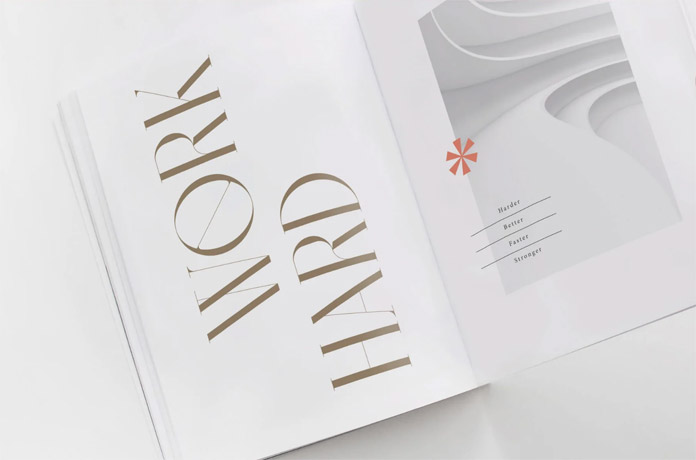
Bigilla is a trustworthy display serif typeface that was created by Jérémie Gauthier. The design includes multiple font weights, such as Regular and Bold. The free Bigilla font also comes with included ligatures and several alternate options. This typeface is perfect for multilingual purposes and can be used in an array of designs, including but not limited to branding, posters, magazines, packaging designs, etc.
9. Juliette – Free Handwritten Signature Font
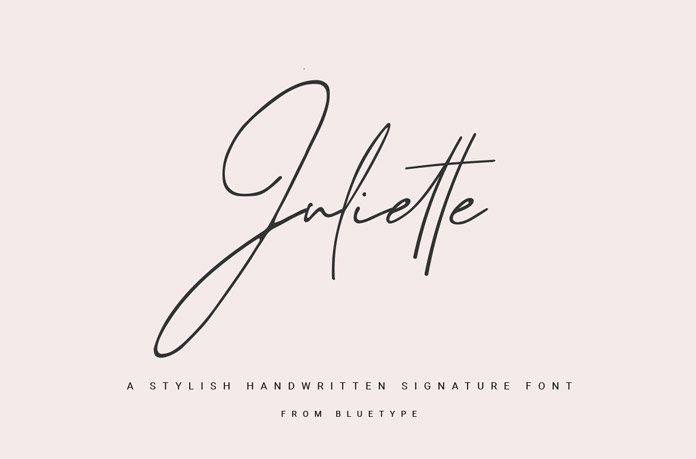
Juliette is the perfect font for creating sophisticated, yet natural and simple signatures in the style of real handwriting. With Juliette’s refined style you can create elegant designs without appearing stuffy. This free handwritten signature font is a great choice for a wide range of projects.
8. Projekt Blackbird – Free Sans Serif Font
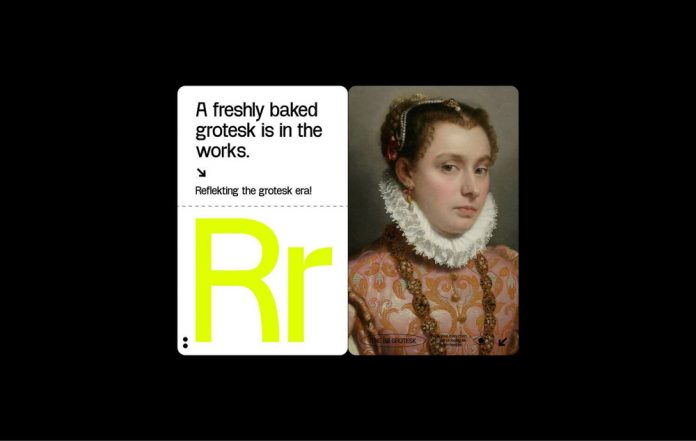
Projekt Blackbird, designed by Leonit Gashi, is a free font that looks great in headlines and web design projects. It can be used for both personal and commercial purposes. The typeface provides a unique and contemporary look.
7. Handler – Free Vintage Sans Serif Font
If you’re looking for a fantastic new vintage typeface, look no further than Handler! This retro-style font has three different character options – regular, stamp, and rough. Mix them up or use them separately to create unique interest in your projects or designs. Handler is perfect for logos, branding, vintage apparel, packaging, and more!
6. Margaret Serif Font
The Margaret Serif font is a beautifully classic display typeface created by Kacper Janusiak and the team at K94 Studio. This free serif font can be used in headlines, branding, and logotypes. It is perfect for adding a touch of elegance to any project. Just click on the link below to get further information about all features.
5. Gilroy Font
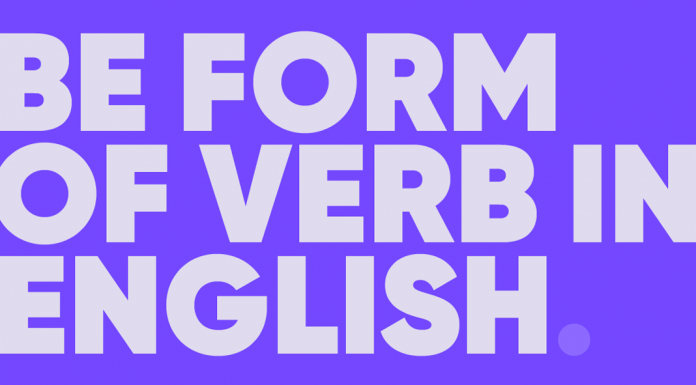
Designed by Radomir Tinkov, Gilroy is a fully functional sans-serif font family, which is actually not free of charge but two styles (Light and Extra Bold) can be downloaded for free on Fontspring. Gilroy is a fantastic choice for a wide range of print and digital applications like websites, mobile apps, branding, signage, and editorial design. Learn more by reading below or clicking the link below!
4. Vollkorn – Free Google Font
Vollkorn is a serif font family that takes inspiration from classic designs. Its regular style was Friedrich Althausen’s first type designing attempt, which he published in 2005 under a Creative-Commons-License. The typeface quickly gained popularity and after only two years, it had been downloaded thousands of times. Today, Vollkorn is available as a free Google Font in 4 weights (Regular, Semi-Bold, Bold, and Black) plus matching Italics for each weight. With its dark and meaty serifsVollkorn can accommodate both print and web design projects equally well.
3. Restora – Old-Style Roman Serif Font
Restora is a popular roman serif font family that offers both a free version and a paid version. The full family includes eight weights ranging from thin to black, plus matching italics for each weight. The free version of Restora includes Extra Light and Thin Italic styles. You can purchase the complete family of 16 fonts here or follow the link below to download the two free styles.
2. Ade Display – Free Serif Font
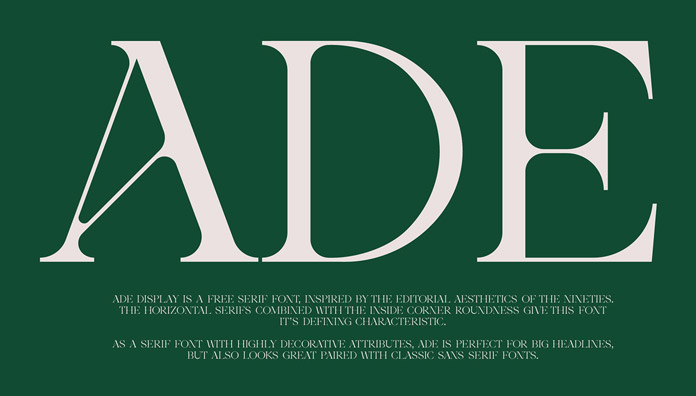
Ade Display is a free sans-serif font created by Thunder Studio. It was inspired by the editorial look of fonts from the nineties and combines horizontal serifs with inside corner roundness to create its unique character. The elegant typeface is ideal for big headlines.
1. Big John Pro – The Best Free Fonts
Big John PRO is one of our all-time favorite free fonts. Designed by Ion Lucin, it’s the updated version of Big John and Slim Joe font which you can find here. The new Pro edition has bold, light, and regular font styles for both personal or commercial use—and absolutely free of charge! To download, just click on the link in the bio section of the Instagram account belonging to Mr. Lucin himself.